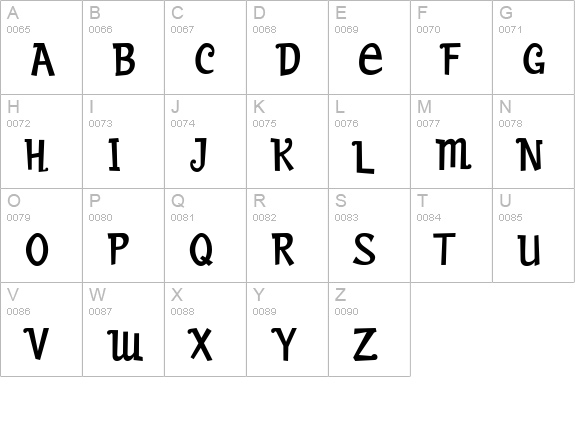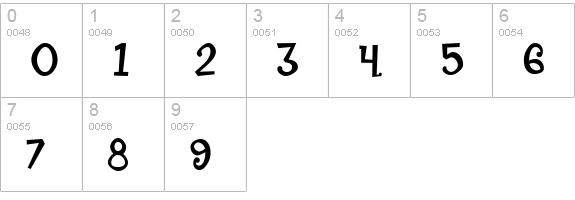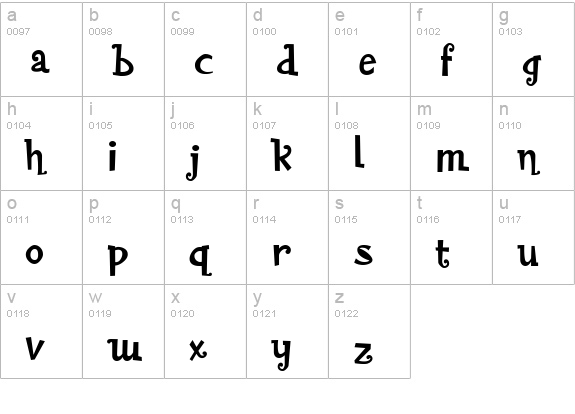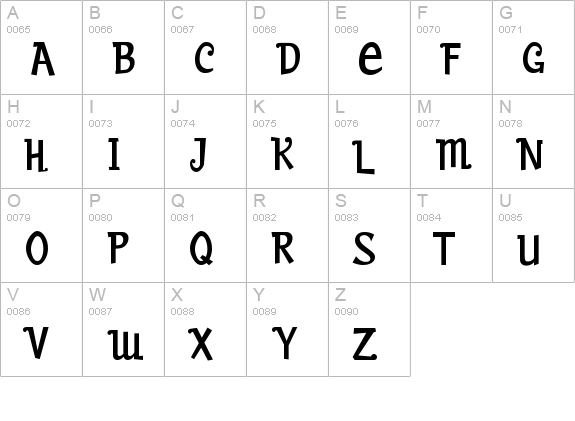
Blairesque Festive JF Font Details
Blairesque Festive JF font embodies the essence of joy and celebration with its whimsical and ornate design. This beautifully crafted font exudes a festive charm that is perfect for adding a touch of elegance to your holiday projects, invitations, and greeting cards. Each letter is intricately designed with intricate details and flourishes, creating a stunning visual impact. What makes Blairesque Festive JF font even more appealing is that it is available for free download at FontsMarket.com. This means that you can easily access this delightful font and incorporate its festive flair into your designs without any cost. Whether you're creating holiday-themed graphics or adding a festive touch to your branding, Blairesque Festive JF font is the perfect choice for spreading joy and cheer. Download it now and let your creativity shine with this enchanting font.